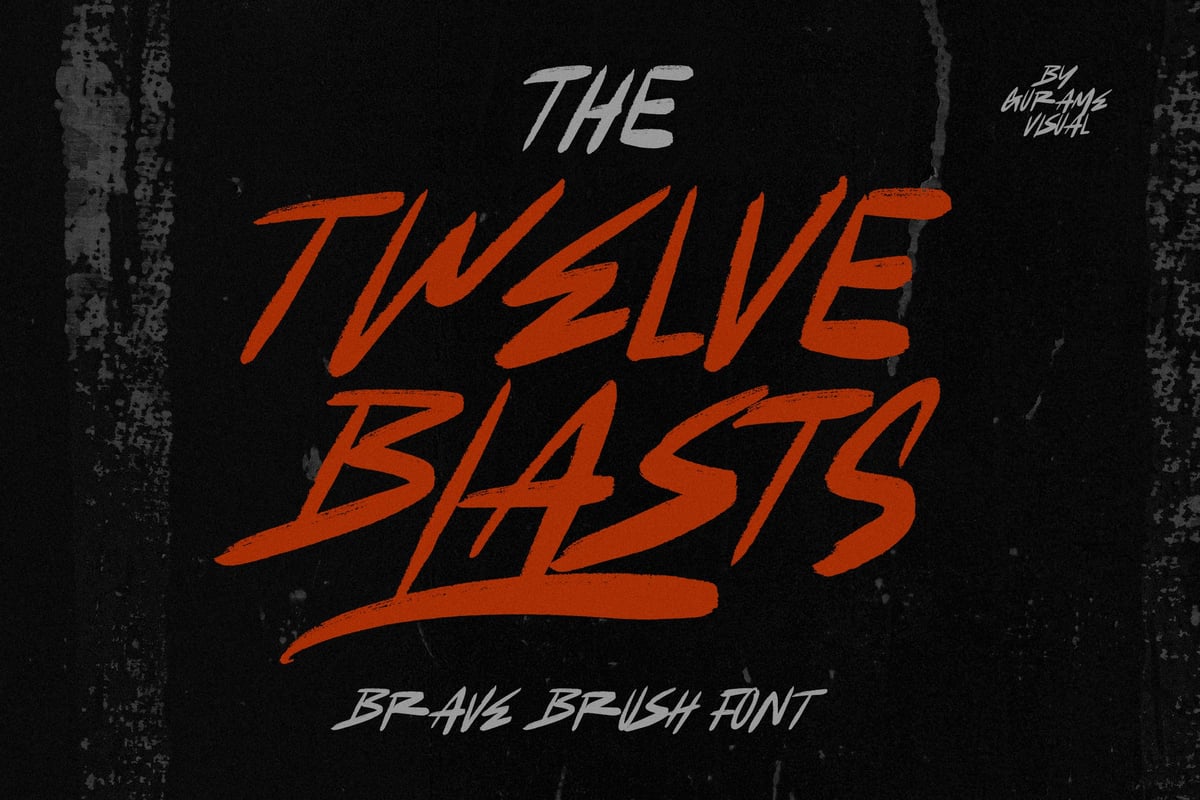
Twelve Blasts - Strong Brush Font
Twelve Blasts is a fearless brush display font built to make every headline hit harder.
Inspired by fast, expressive brush strokes and raw hand-painted lettering, Twelve Blasts delivers sharp angles, rough textures, and high-energy character forms that instantly demand attention. Whether you're designing posters, apparel, sports branding, or statement typography, this font brings bold confidence to every layout.
Every character is crafted with dynamic movement — giving your designs a powerful, fearless edge while maintaining strong readability at display sizes.
- Strong brush display style
- Hand-painted brush texture
- Bold uppercase and lowercase characters
- Numbers and punctuation included
- High-impact display typography
Bring fearless energy to your typography with Twelve Blasts — a strong brush display font built to make every headline stand out.